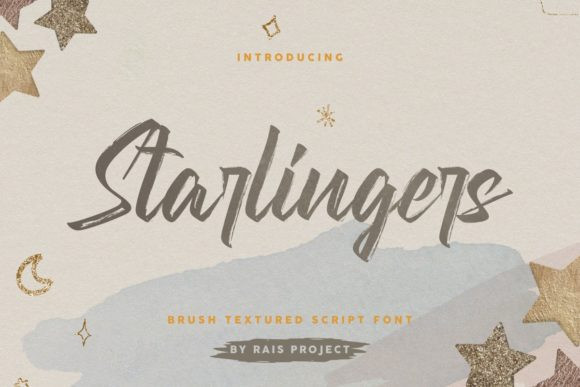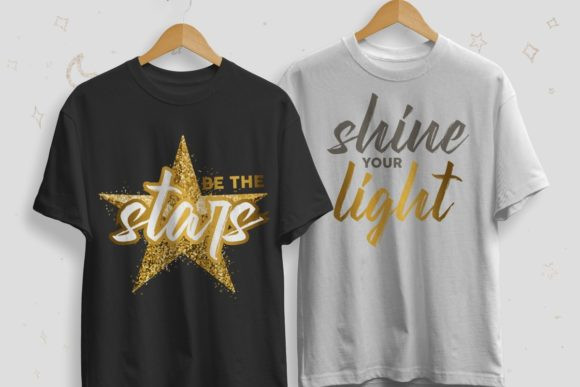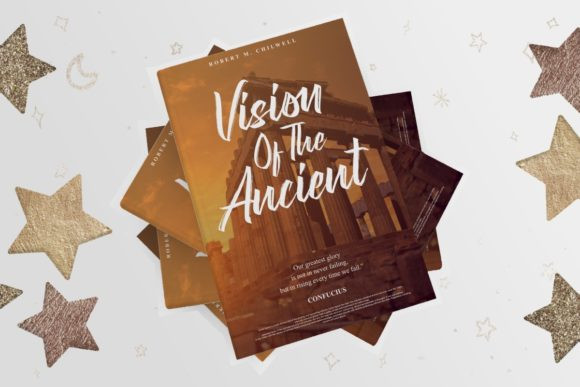
Starlingers Font
Starlingers FontStarlingers is a cool, stylish and brushed display font. This font is PUA encoded which means you can access all of the glyphs and swashes with ease!
Starlingers reads as strong, confident, and dynamic and can add tons of nostalgic character to your designs.